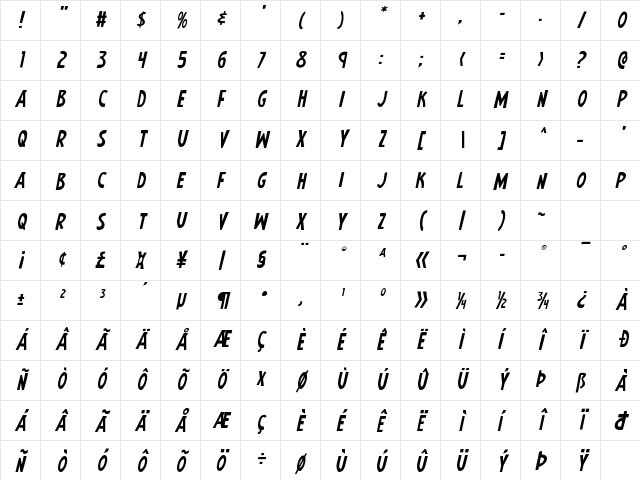
Complete Earth's Mightiest Jumbled Italic glyph index. Displaying only characters natively supported by Earth's Mightiest Jumbled Italic font.
Earth's Mightiest Jumbled is a composed and adaptable typeface that performs quietly and consistently across a wide range of design contexts. The slanted form adds forward momentum and visual energy.
Pro Tip: Use Earth's Mightiest Jumbled for emphasis, pull quotes, and subheadings where its slanted energy can add rhythm to the layout.